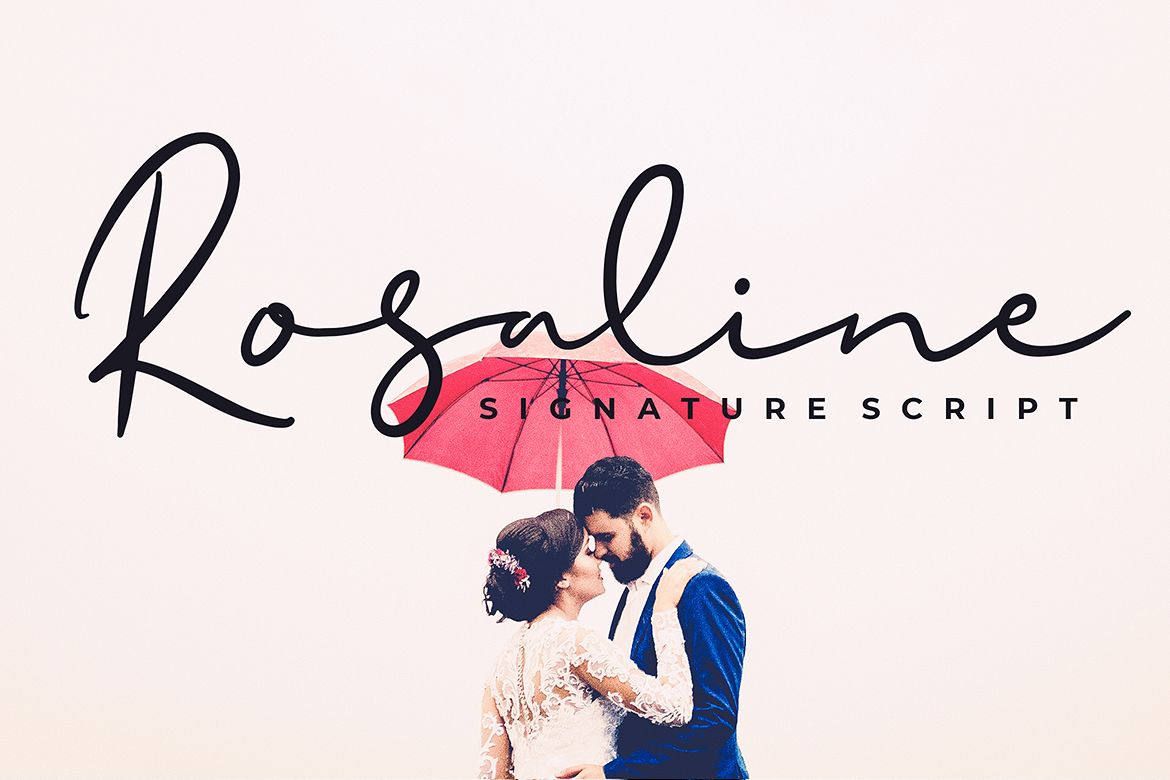
Rosaline Signature Script Font
Rosaline
Rosaline Signature Script can be used for various purposes such as logos, wedding invitations, t-shirts, letterheads, signage’s, labels, and much more!